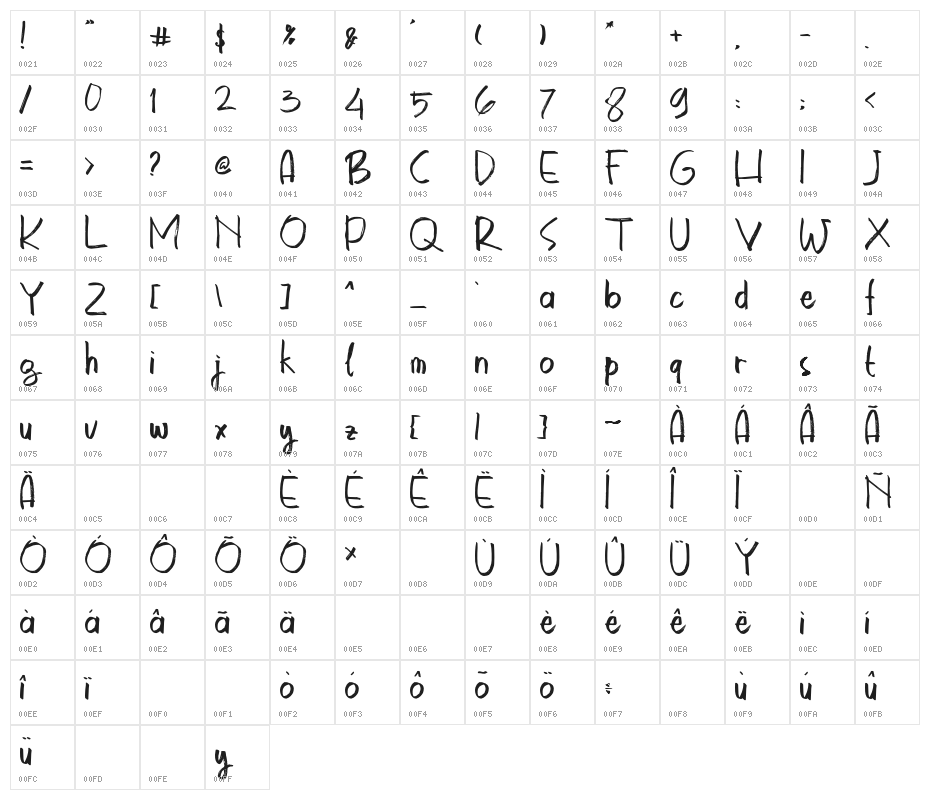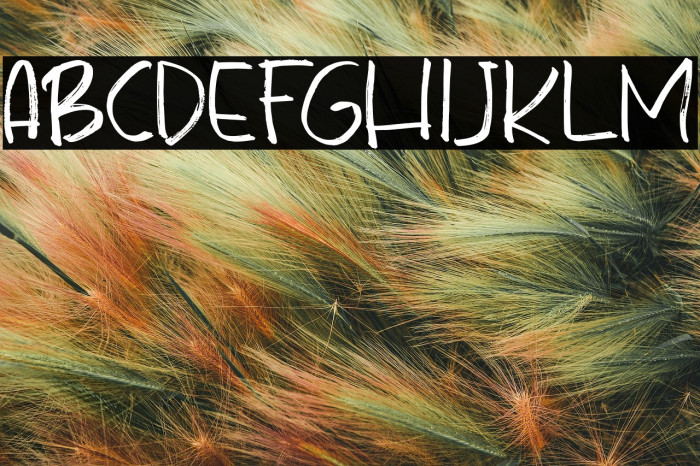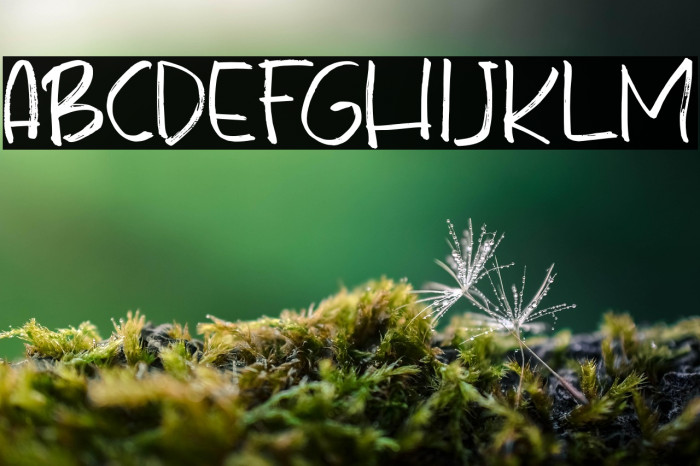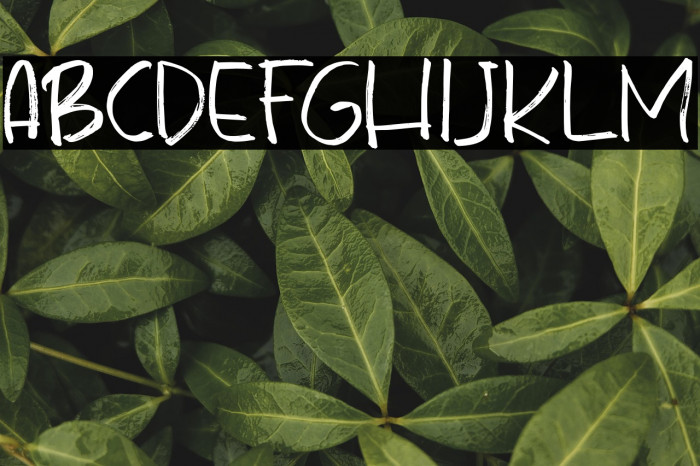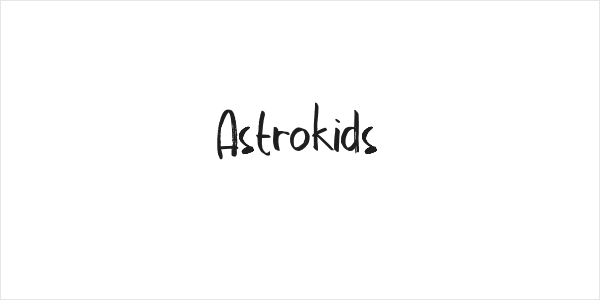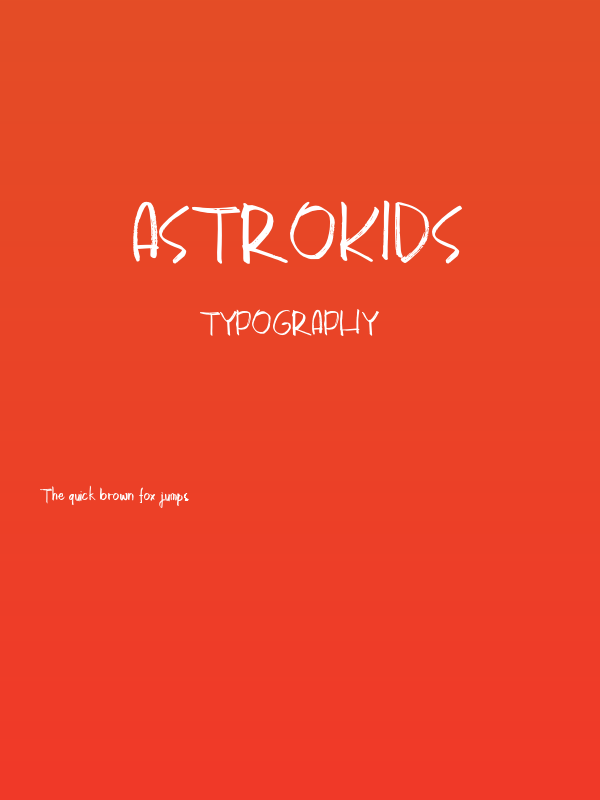
Astrokids Font
Astrokids Description
This font exudes a playful and artistic vibe, characterized by its hand-drawn, brush-like strokes. The letters have an irregular, organic flow, giving them a dynamic and lively appearance. The uppercase and lowercase letters maintain a consistent style, with varying thicknesses that add to the font's charm. The numbers and special characters follow the same whimsical design, making the entire set cohesive. This font is perfect for projects that require a personal touch, such as children's books, creative posters, or artistic branding. Its unique style captures attention and conveys a sense of creativity and fun.
| Proposed Projects | Children's books, creative posters, artistic branding, playful invitations. |